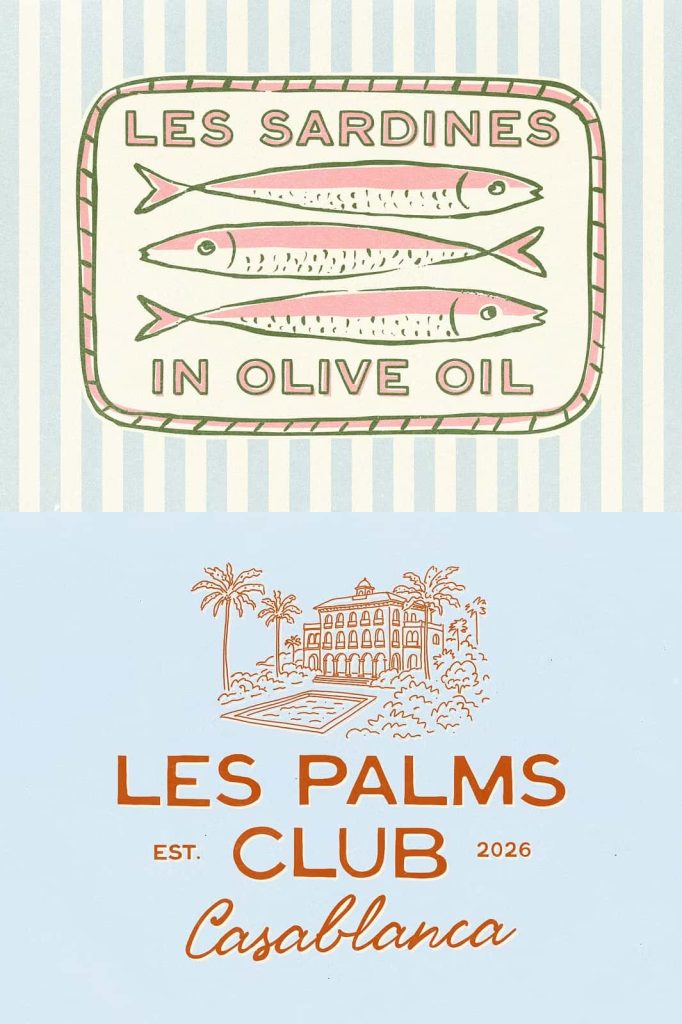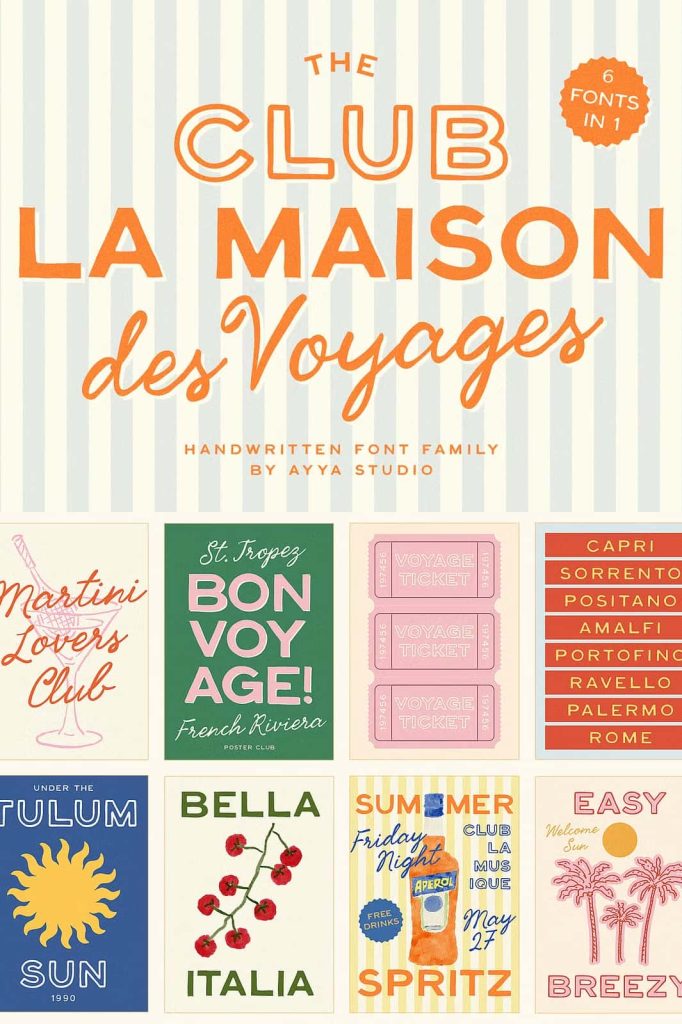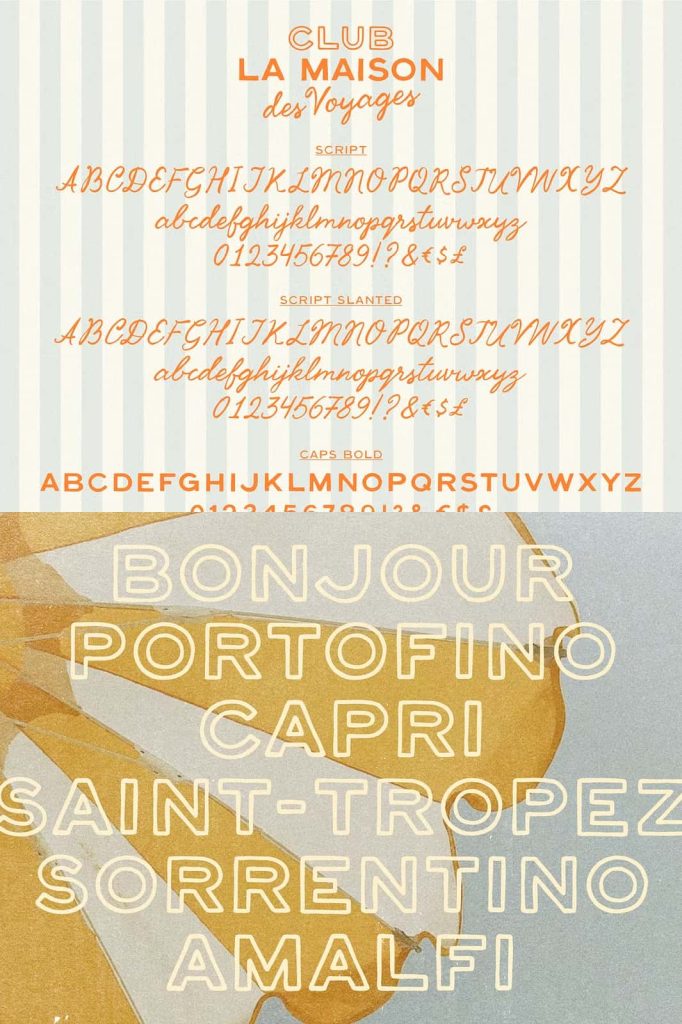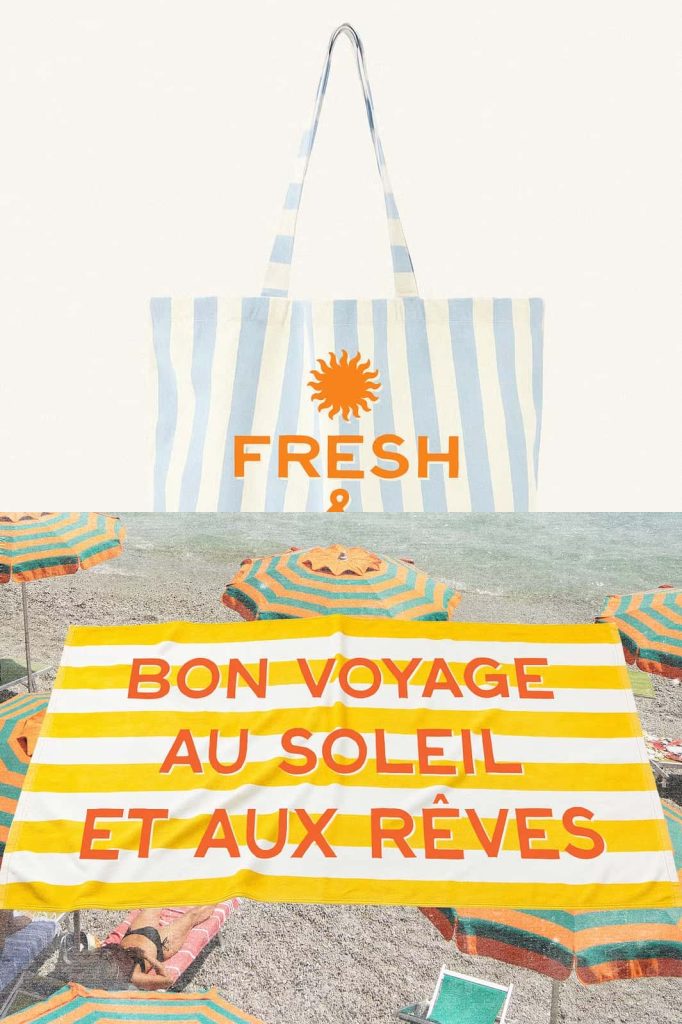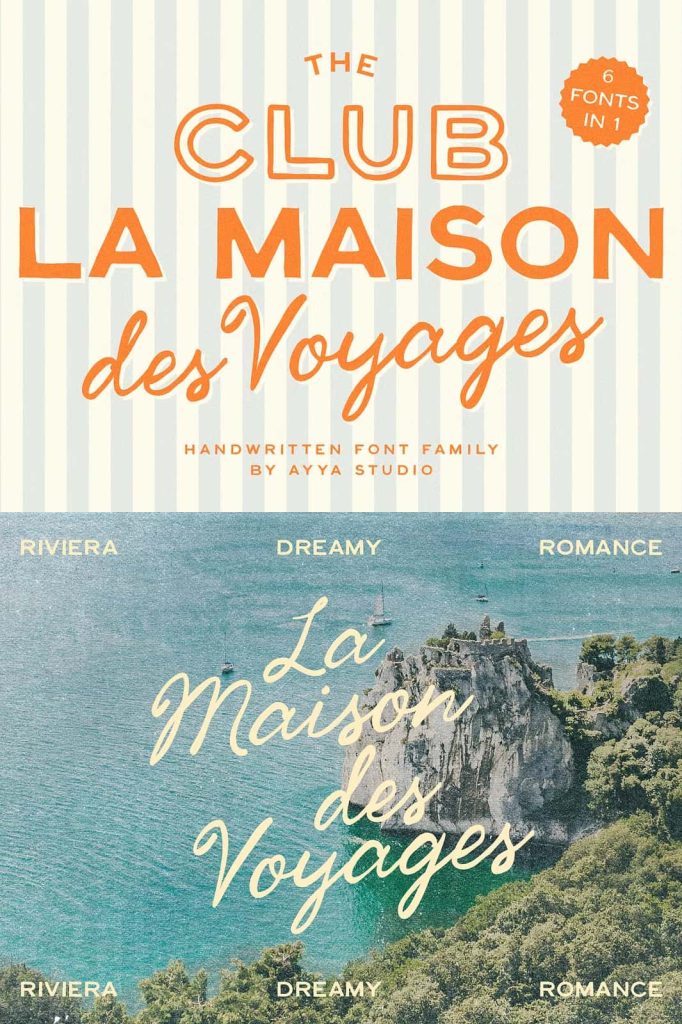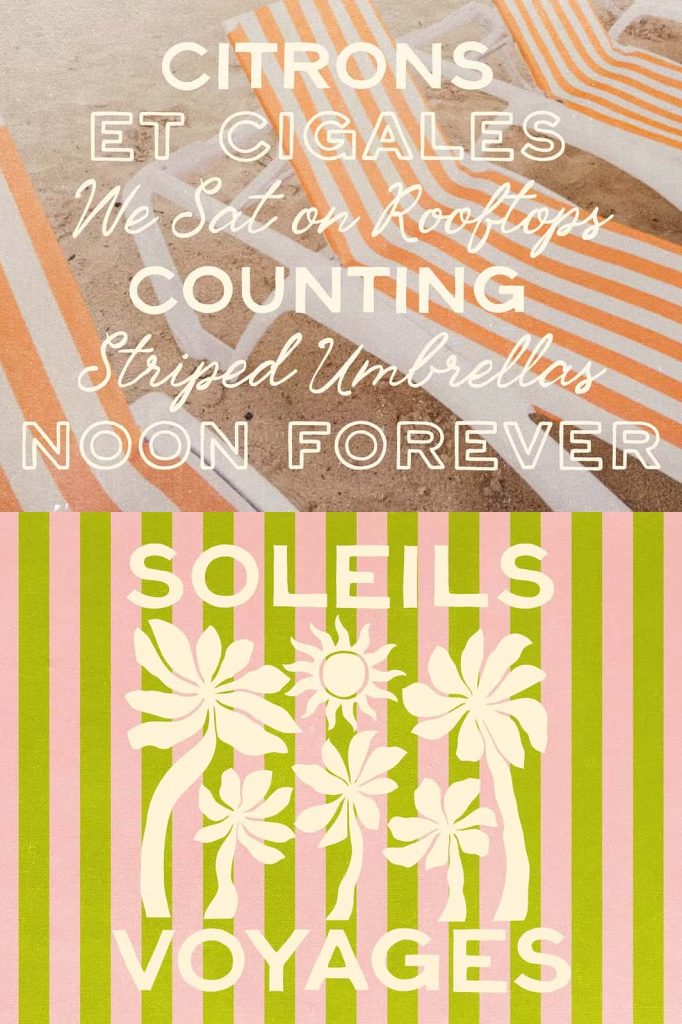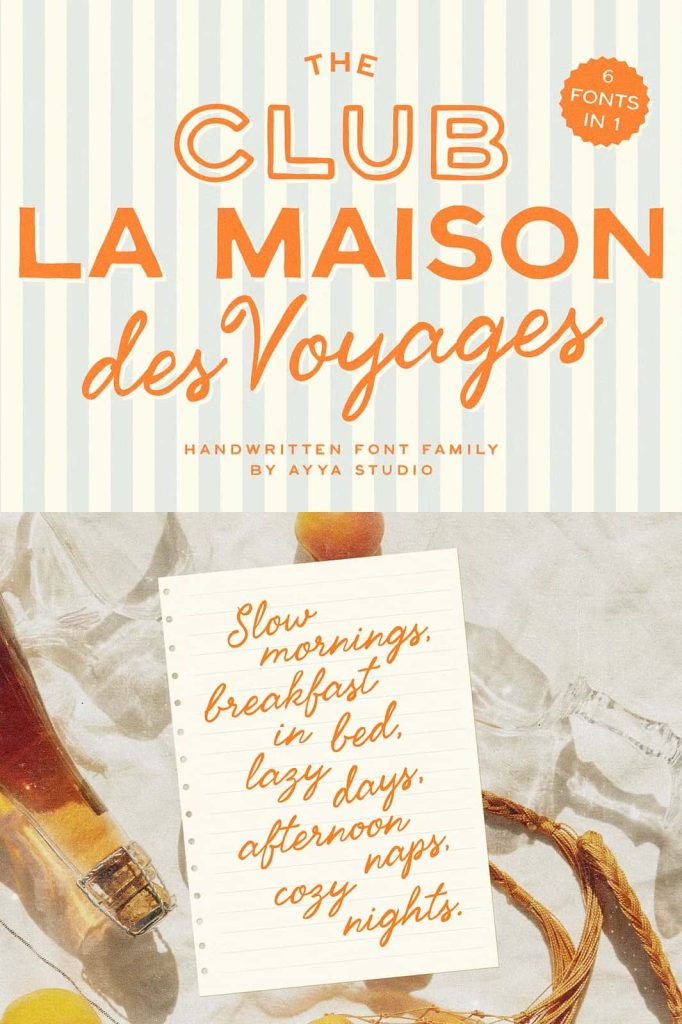
Handwritten Coastal Vintage Font: Mediterranean Charm in Every Letter
The Handwritten Coastal Vintage Font captures the relaxed elegance and nostalgic beauty of seaside life. Inspired by vintage travel magazines, beach club branding, and the effortless charm of Mediterranean holidays, this font brings a warm and inviting personality into modern design. It reflects a lifestyle shaped by sun, sea, and timeless aesthetics, allowing designers to create visuals that feel both authentic and emotionally engaging.
This font family does not simply replicate a handwritten style. It recreates a full atmosphere. Each letter carries the feeling of sun-bleached postcards, hand-painted signage, and leisurely days spent by the coast. Designers can use it to evoke memories, build mood, and tell stories through typography.
Inspired by Vintage Travel and Coastal Living
The design of this font draws directly from the visual language of old travel magazines and classic holiday destinations. It reflects a time when design felt personal, expressive, and deeply connected to place. The influence of Mediterranean culture adds warmth, elegance, and a sense of escape.
Designers can use this font to recreate that nostalgic atmosphere in their own work. It works especially well in projects that aim to capture the romance of travel and the beauty of coastal environments.
A Tribute to Mediterranean Aesthetics
The Mediterranean influence appears in every detail of the font. The flowing strokes and organic shapes reflect hand-painted signage often seen in seaside towns. The style feels relaxed yet refined, making it suitable for both casual and sophisticated designs.
This aesthetic allows designers to create visuals that feel timeless and culturally rich. It brings a sense of place into typography, making designs more immersive and memorable.
Handwritten Style with Natural Flow
The Handwritten Coastal Vintage Font features a natural and fluid writing style. Each character connects smoothly, creating a rhythm that feels effortless and authentic. This approach enhances readability while maintaining a strong visual identity.
Unlike rigid digital fonts, this handwritten style introduces subtle variations that add depth and personality. These imperfections make the font feel more human and approachable, which strengthens its emotional appeal.
Organic Imperfections That Add Character
The slight inconsistencies in stroke and spacing give the font its unique charm. These details mimic real handwriting, where no two letters look exactly the same. This quality adds richness and authenticity to the design.
Designers can use these organic elements to create compositions that feel alive and expressive. The font supports creativity while maintaining a cohesive look.
Perfect for Beach-Inspired and Vintage Designs
This font performs exceptionally well in projects that require a coastal or vintage theme. Its relaxed and nostalgic style makes it ideal for a wide range of creative applications. Designers can use it to build visuals that feel warm, inviting, and full of character.
Whether working on branding, posters, or editorial layouts, the font adapts easily to different formats. It maintains its charm across both print and digital media, ensuring consistent results.
Ideal for Branding, Posters, and Packaging
The Handwritten Coastal Vintage Font works beautifully in branding projects, especially for beach clubs, cafes, and lifestyle brands. It helps create a strong identity that feels authentic and memorable. The handwritten style adds a personal touch that resonates with audiences.
In poster design, the font creates eye-catching compositions that capture attention while maintaining a relaxed tone. It also enhances packaging design by adding a handcrafted and premium feel to products.
Evoking Atmosphere Through Typography
This font goes beyond visual appearance. It creates an atmosphere that connects with viewers on an emotional level. The imagery it evokes—striped loungers, coastal breezes, and sunlit afternoons—adds depth to any design.
Designers can use this atmospheric quality to strengthen storytelling and build a more immersive experience. It transforms simple text into a visual narrative that captures attention and leaves a lasting impression.
Bringing Warmth and Relaxation into Design
The font introduces a sense of calm and warmth that enhances the overall tone of a project. It softens rigid layouts and adds a human touch that feels welcoming and genuine. This makes it particularly effective in lifestyle and hospitality design.
By incorporating this font, designers can create visuals that feel approachable and emotionally engaging. It helps establish a connection between the design and its audience.
Conclusion
The Handwritten Coastal Vintage Font offers a unique blend of nostalgia, elegance, and coastal charm. Inspired by Mediterranean holidays and vintage travel aesthetics, it provides designers with a powerful tool for creating warm and expressive typography. Whether used in branding, posters, or packaging, this font transforms text into a vivid and memorable experience rooted in timeless seaside beauty.